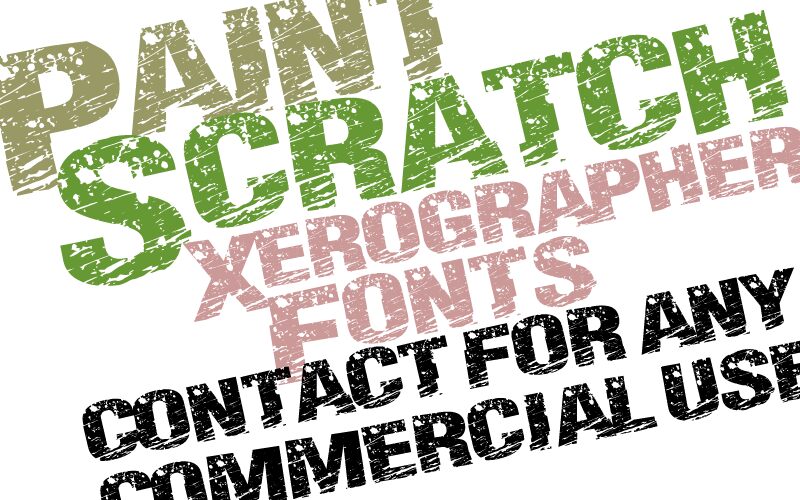
Paint Scratch by Xerographer Fonts is a free eroded display font with broad, forceful capitals, blunt proportions, and a rough industrial surface. Dense letter shapes are cut through by scattered chips, long diagonal scrapes, and clusters of small pockmarks, with some areas nearly scoured clean. The damage feels layered and aggressive.
Music posters and album covers are its strongest setting, especially for punk, metal, or noise releases that suit the battered, hard-used surface. On skate merchandise, action-game graphics, and distressed product packaging, the lettering can become part of an illustrated scrape or weathered emblem rather than serving as neutral titling.